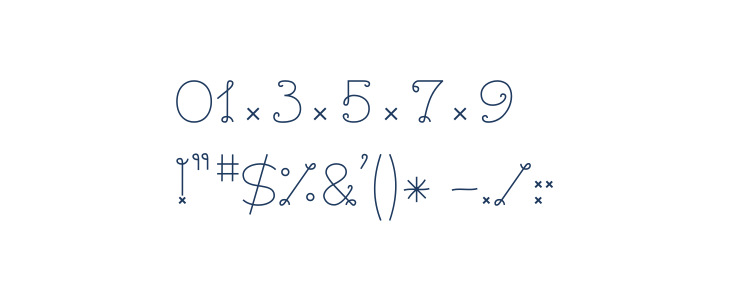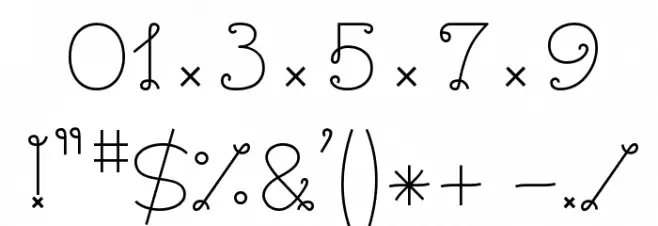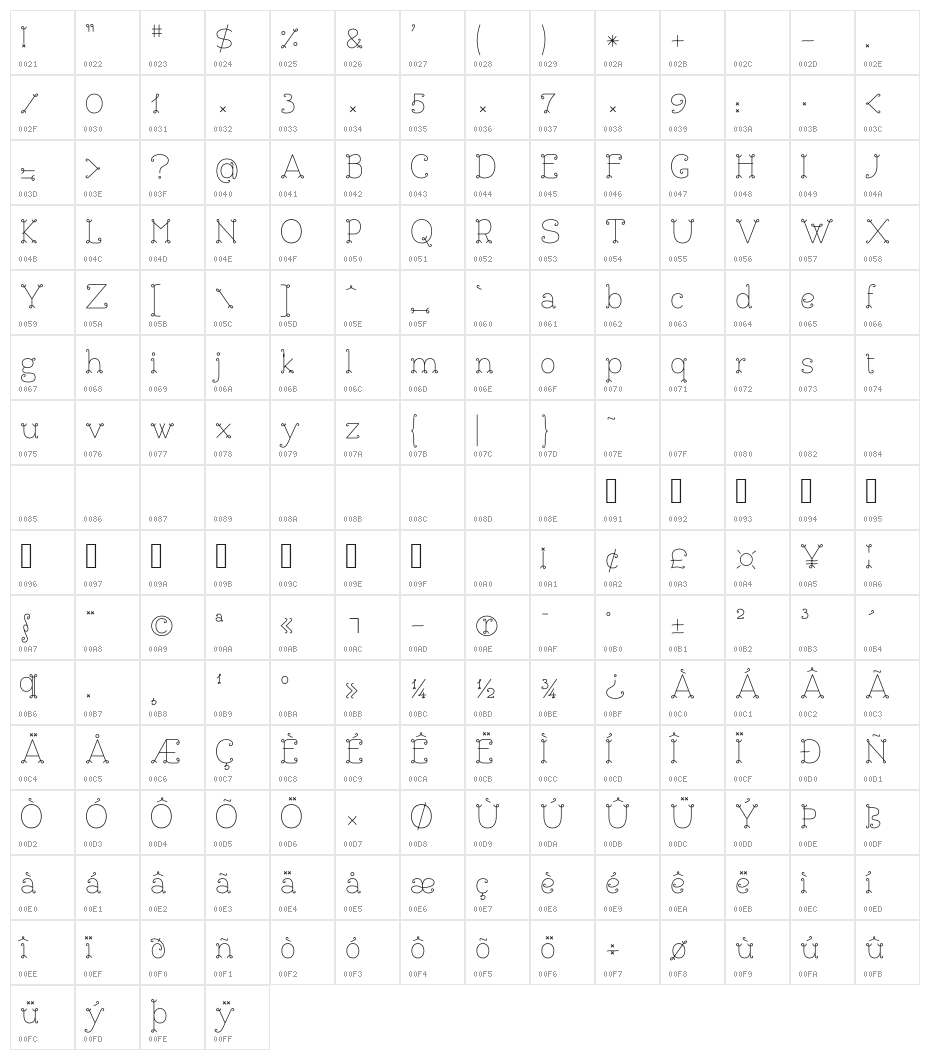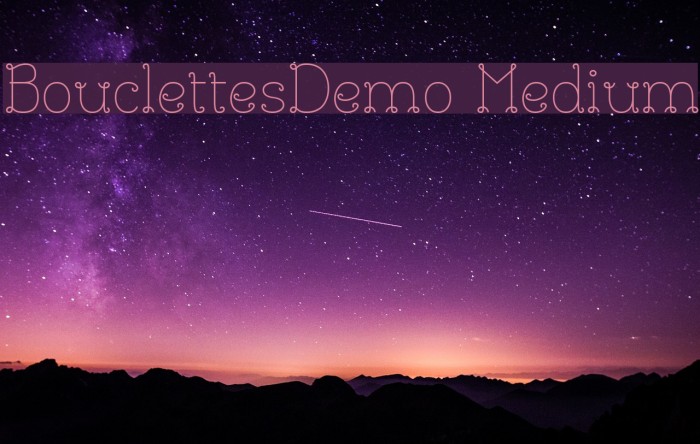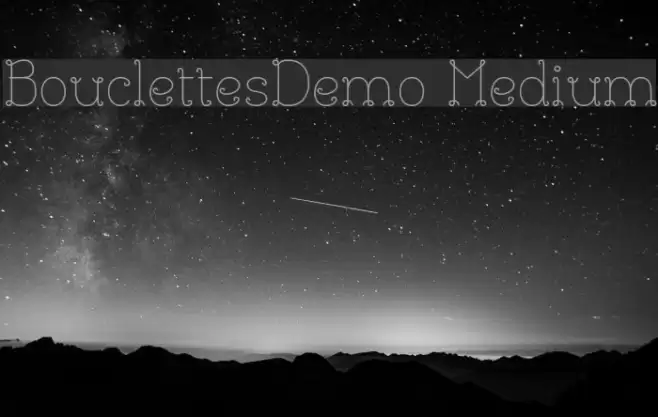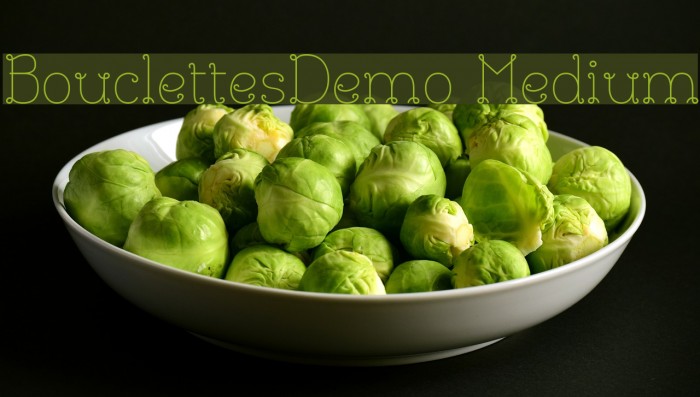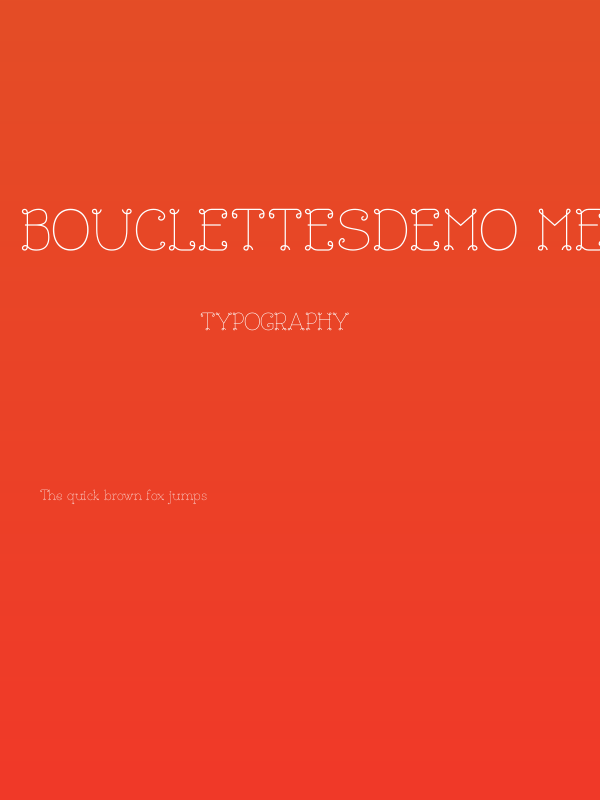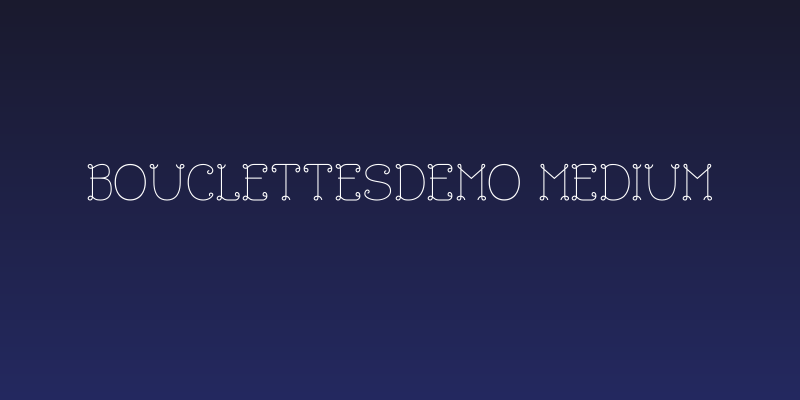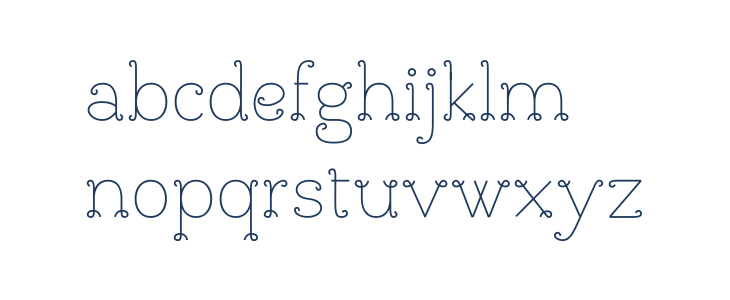
BouclettesDemo Medium Font
BouclettesDemo Medium Description
This font features a whimsical and playful design, characterized by its unique looped serifs and decorative elements at the end of each stroke. The letters are evenly spaced, with a consistent medium weight that gives it a balanced appearance. Its distinct style is reminiscent of hand-drawn or crafted typography, making it stand out in creative projects. The uppercase and lowercase letters maintain a uniform height, while the numerals and special characters are designed to complement the overall aesthetic. This font is ideal for projects that require a touch of creativity and fun, such as children's books, playful branding, or artistic posters.
| Use Case | Headlines, Logos, Artistic projects |
| Proposed Projects | Children's books, playful branding, artistic posters, creative invitations. |